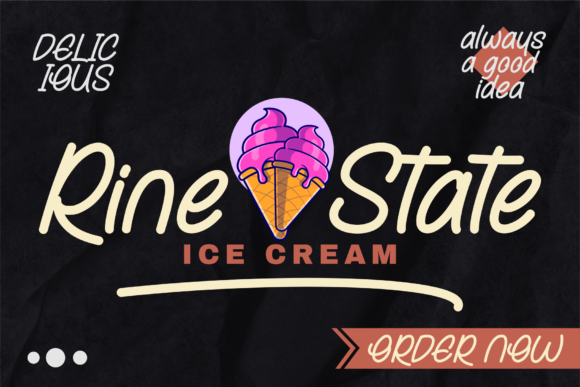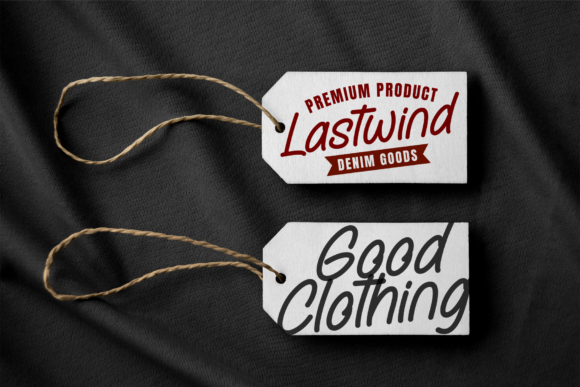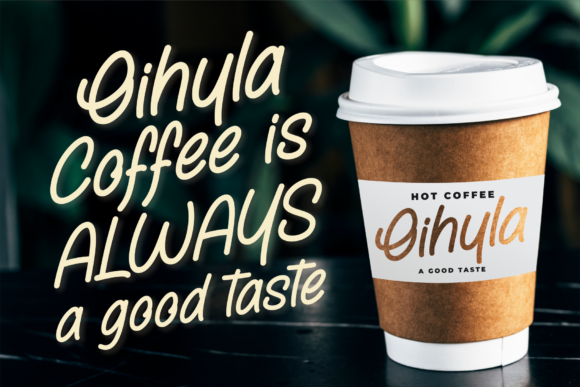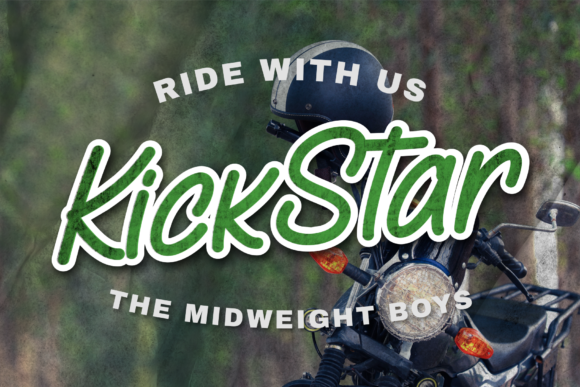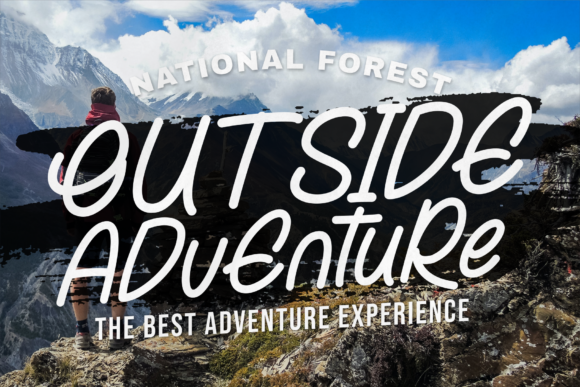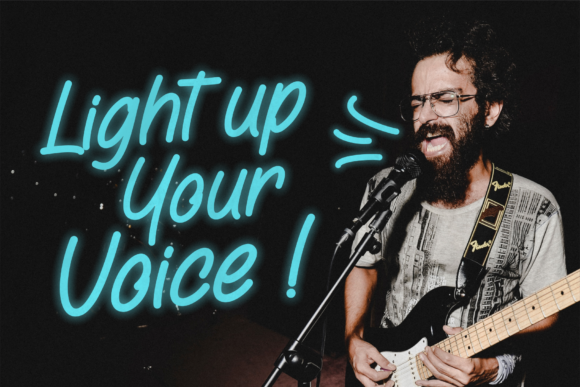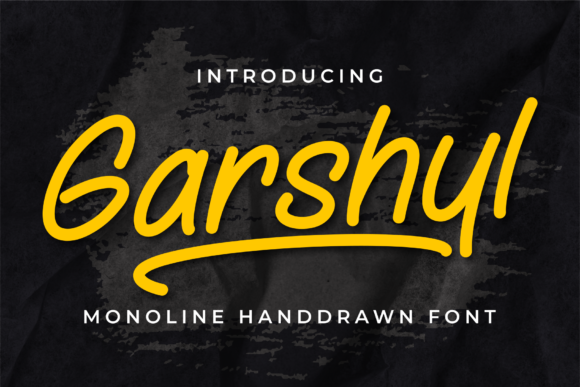
Introducing Garshyl Font: The Magical Script Font for Creative Minds
Are you a designer, crafter, or DIY enthusiast looking for a font that can elevate your creative projects to the next level? Look no further than Garshyl Font, a magical script font that combines versatility with a touch of whimsy. In this article, we’ll dive into the world of Garshyl Font and explore its features, benefits, and uses.
What is Garshyl Font?
Garshyl Font is a carefully crafted script font that is designed to bring a touch of magic to your creative projects. With its flowing lines, intricate details, and elegant curves, Garshyl Font is perfect for anyone looking to add a personal touch to their designs. Whether you’re creating social media graphics, crafting DIY projects, or designing calligraphy scripts, Garshyl Font is the perfect choice.
Features of Garshyl Font
So, what makes Garshyl Font so special? Here are just a few of its key features:
- Versatility: Garshyl Font is designed to be versatile, making it perfect for a wide range of creative projects.
- Magical touch: With its whimsical curves and intricate details, Garshyl Font adds a touch of magic to any design.
- Elegant curves: The font’s elegant curves make it perfect for creating beautiful calligraphy scripts.
- Easy to read: Despite its intricate details, Garshyl Font is easy to read, making it perfect for body text and headings.
Uses of Garshyl Font
So, what can you use Garshyl Font for? The possibilities are endless! Here are just a few ideas to get you started:
- Instagram graphics: Use Garshyl Font to create stunning Instagram graphics that will make your followers swoon.
- DIY projects: Add a personal touch to your DIY projects with Garshyl Font, perfect for crafting, scrapbooking, and more.
- Calligraphy scripts: Use Garshyl Font to create beautiful calligraphy scripts for special occasions, such as weddings, birthdays, and holidays.
- Branding: Use Garshyl Font to create a unique and memorable brand identity for your business.
Benefits of Using Garshyl Font
So, why should you choose Garshyl Font for your creative projects? Here are just a few benefits:
- Unique look: Garshyl Font gives your designs a unique and distinctive look that will set you apart from the crowd.
- High-quality: Garshyl Font is a high-quality font that is designed to produce stunning results.
Tips for Using Garshyl Font
Here are a few tips for getting the most out of Garshyl Font:
- Experiment with different sizes: Garshyl Font looks great in a variety of sizes, so don’t be afraid to experiment.
- Pair with other fonts: Try pairing Garshyl Font with other fonts to create a unique and interesting look.
- Use for headings and titles: Garshyl Font is perfect for headings and titles, so use it to add a touch of elegance to your designs.
In conclusion, Garshyl Font is a magical script font that is perfect for designers, crafters, and DIY enthusiasts. With its versatile design, elegant curves, and easy-to-read text, Garshyl Font is the perfect choice for a wide range of creative projects. Whether you’re looking for a font for Instagram, calligraphy scripts, or DIY projects, Garshyl Font is sure to impress. So why wait? Download Garshyl Font today and start creating your own magical designs!